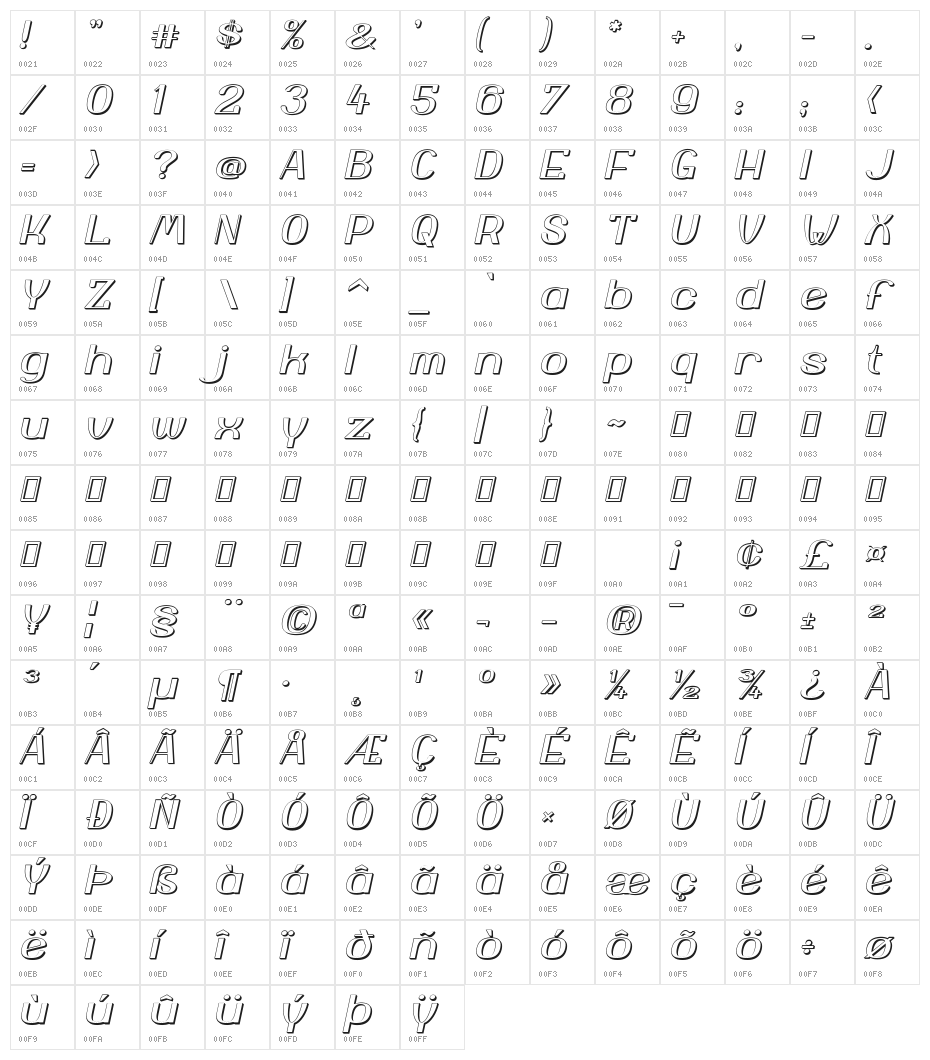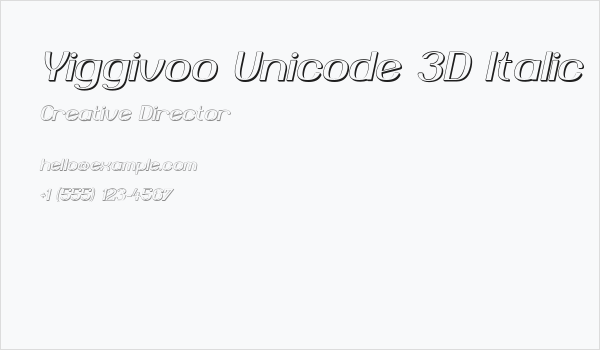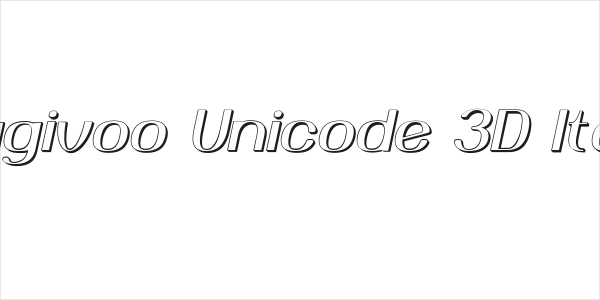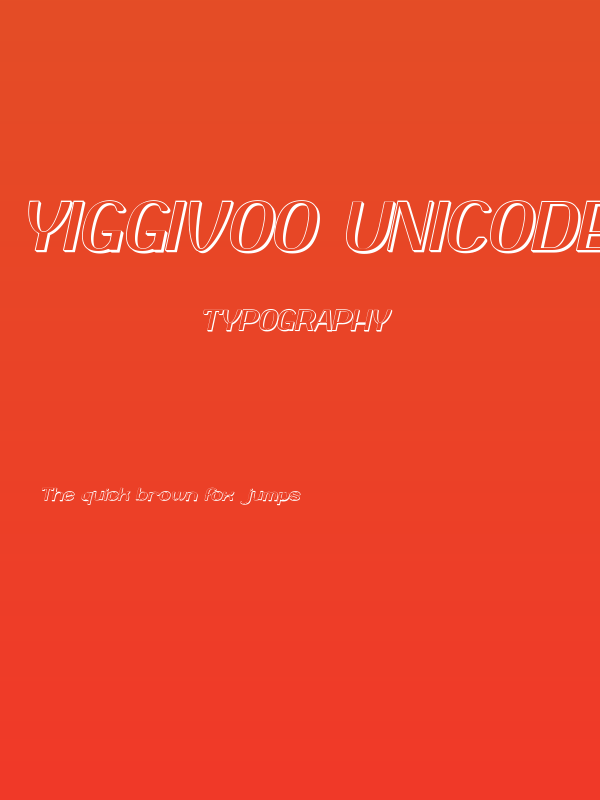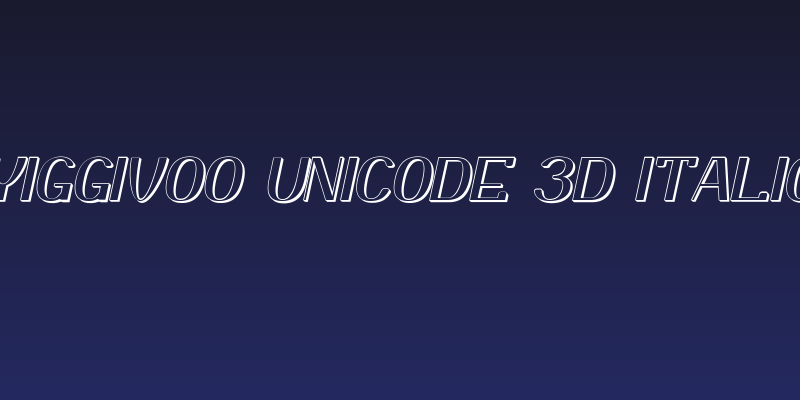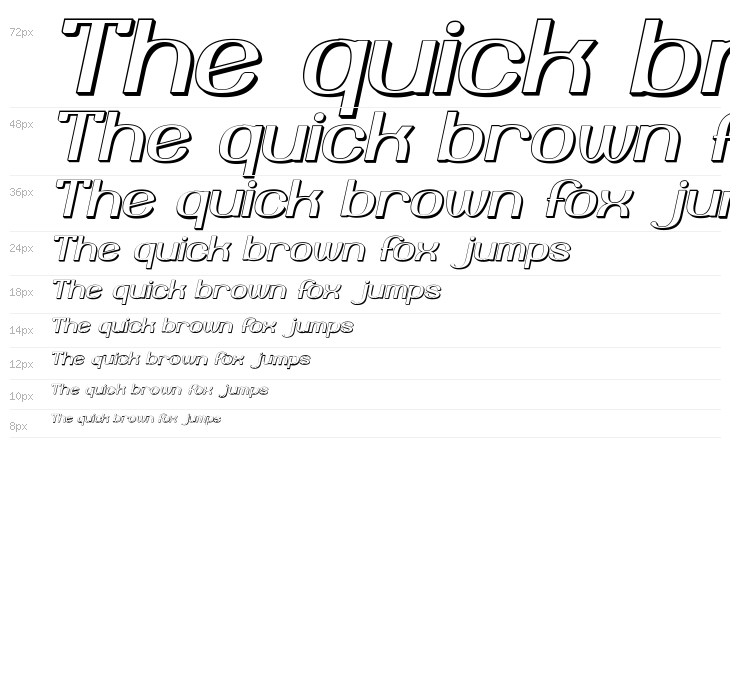
Yiggivoo Unicode 3D Italic Font
Yiggivoo Unicode 3D Italic Description
This font features a unique 3D effect with an italicized style, giving it a dynamic and modern appearance. The characters are outlined, creating a sense of depth and dimension. The uppercase and lowercase letters maintain a consistent style, with smooth curves and clean lines. The numerals and special characters are designed to match the overall aesthetic, ensuring uniformity across all glyphs. This font's playful yet sophisticated look makes it suitable for a variety of creative projects.